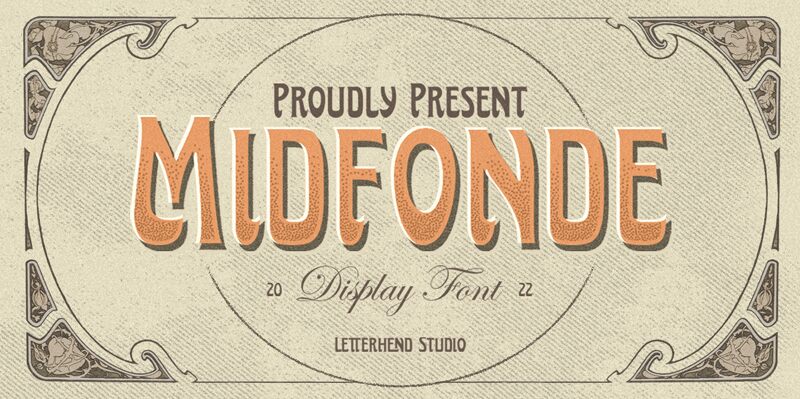
Midfonde, crafted by the creative minds at Letterhend Studio, stands as a testament to the timeless allure of art deco elegance. This semi-bold, condensed display font encapsulates the geometric sophistication and ornamental charm of a bygone era, making it an impeccable choice for designers aiming to infuse a touch of retro glamour into their projects. Midfonde's distinct character shines in applications where visual impact is paramount—from striking logos and attention-grabbing headlines to elegant signage that guides with style.
With its versatility extending to formal creations like invitations and labels, Midfonde effortlessly elevates magazine layouts, book covers, and packaging designs. Bridal suites bask in its nostalgic grace as wedding cards whisper tales of love through its lines. Fashion brands can harness its bold personality for branding that resonates with chic flair while novelists wrap their stories in covers that speak volumes before pages are turned. For any endeavor seeking a font with poise and purpose, Midfonde offers a canvas where creativity meets classic design.